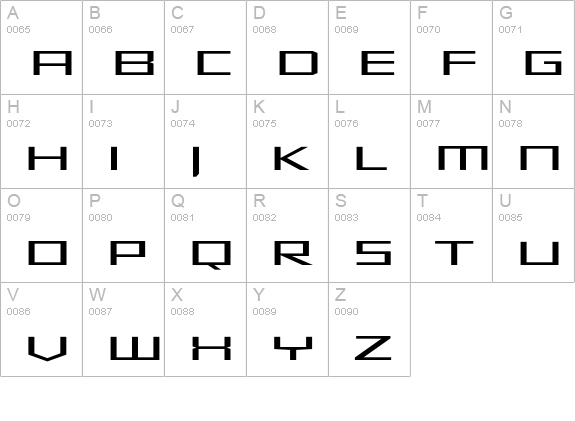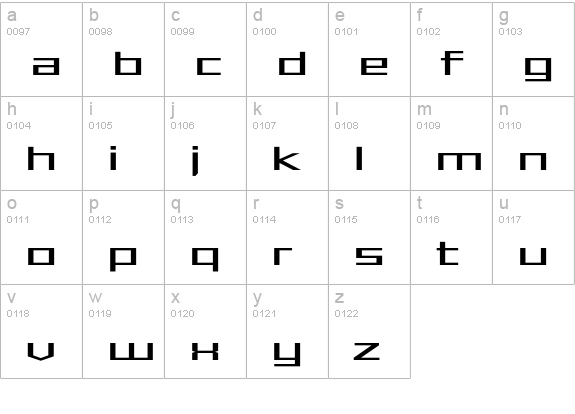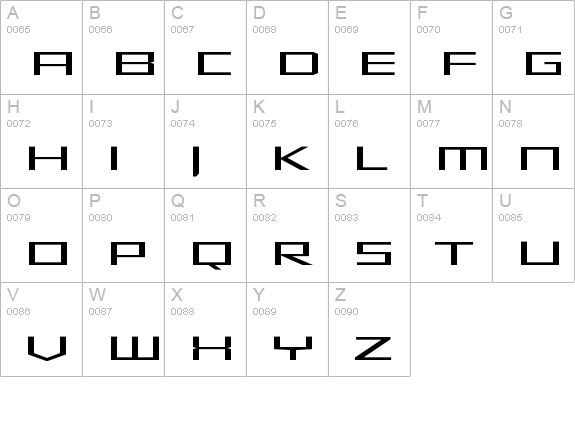
Shimano-SquareLight Font Details
Shimano-SquareLight font is a modern and sleek typeface that exudes elegance and sophistication. Its clean lines and sharp edges give a contemporary feel, making it perfect for projects that require a touch of professionalism. This font is designed with the utmost attention to detail, ensuring that each character is crafted with precision and accuracy. The square shapes of the letters add a unique and distinctive touch, setting it apart from other fonts in its category. One of the best features of Shimano-SquareLight font is that it is freely available to download at FontsMarket.com. This means that designers and enthusiasts alike can access this beautiful font without any cost, making it an excellent choice for budget-conscious projects. Whether you're designing a logo, creating a website, or working on a branding project, Shimano-SquareLight font will undoubtedly elevate your work to new heights. Its versatility allows it to be used in various contexts, from corporate presentations to fashion magazines. With its stylish and contemporary aesthetic, Shimano-SquareLight font is sure to leave a lasting impression on your audience. Download it for free at FontsMarket.com and unlock the potential to create visually stunning designs that make a statement.